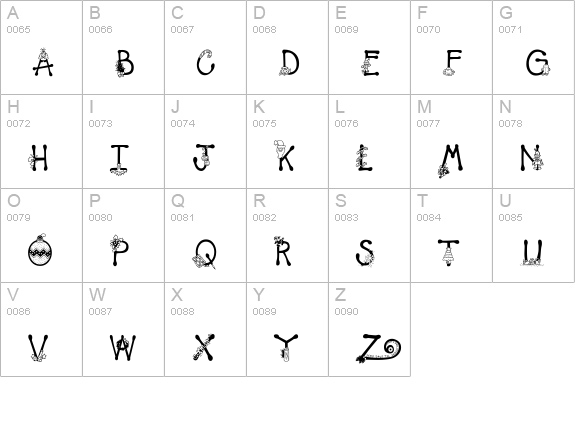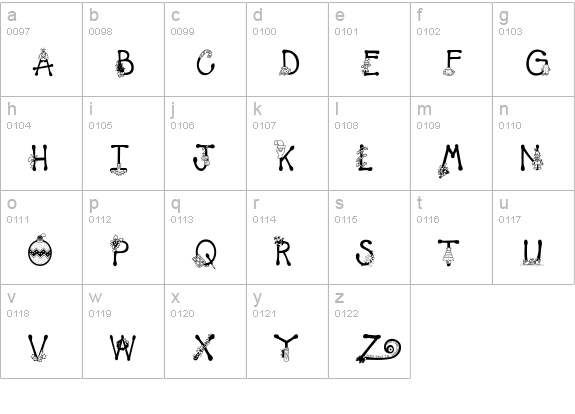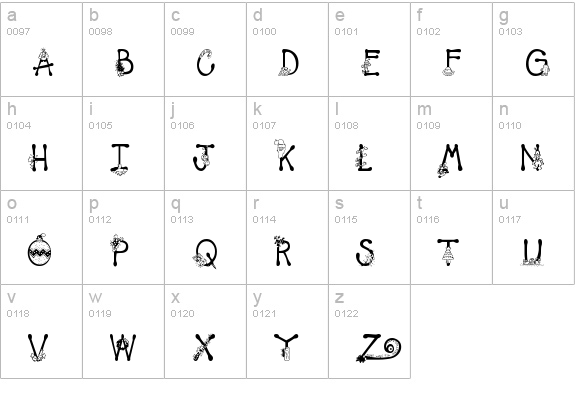
CK Christmas Memories Font Details
Introducing CK Christmas Memories font, a delightful and whimsical typeface perfect for adding a touch of holiday charm to your designs. This versatile font captures the essence of the Christmas season with its playful and festive style, making it ideal for greeting cards, invitations, posters, and more. Featuring a unique blend of hand-drawn elements and decorative accents, CK Christmas Memories font exudes warmth and nostalgia, evoking memories of cozy gatherings, twinkling lights, and the joy of the season. Whether you're creating a holiday-themed project or simply looking to infuse a bit of Christmas spirit into your designs, this font is sure to bring a smile to your audience's faces. Best of all, CK Christmas Memories font is available for free download at FontsMarket.com, making it easily accessible for designers and creatives looking to spread a little holiday cheer. So why not add a touch of magic to your next project with this charming and festive font? Download CK Christmas Memories today and let your creativity shine this holiday season.